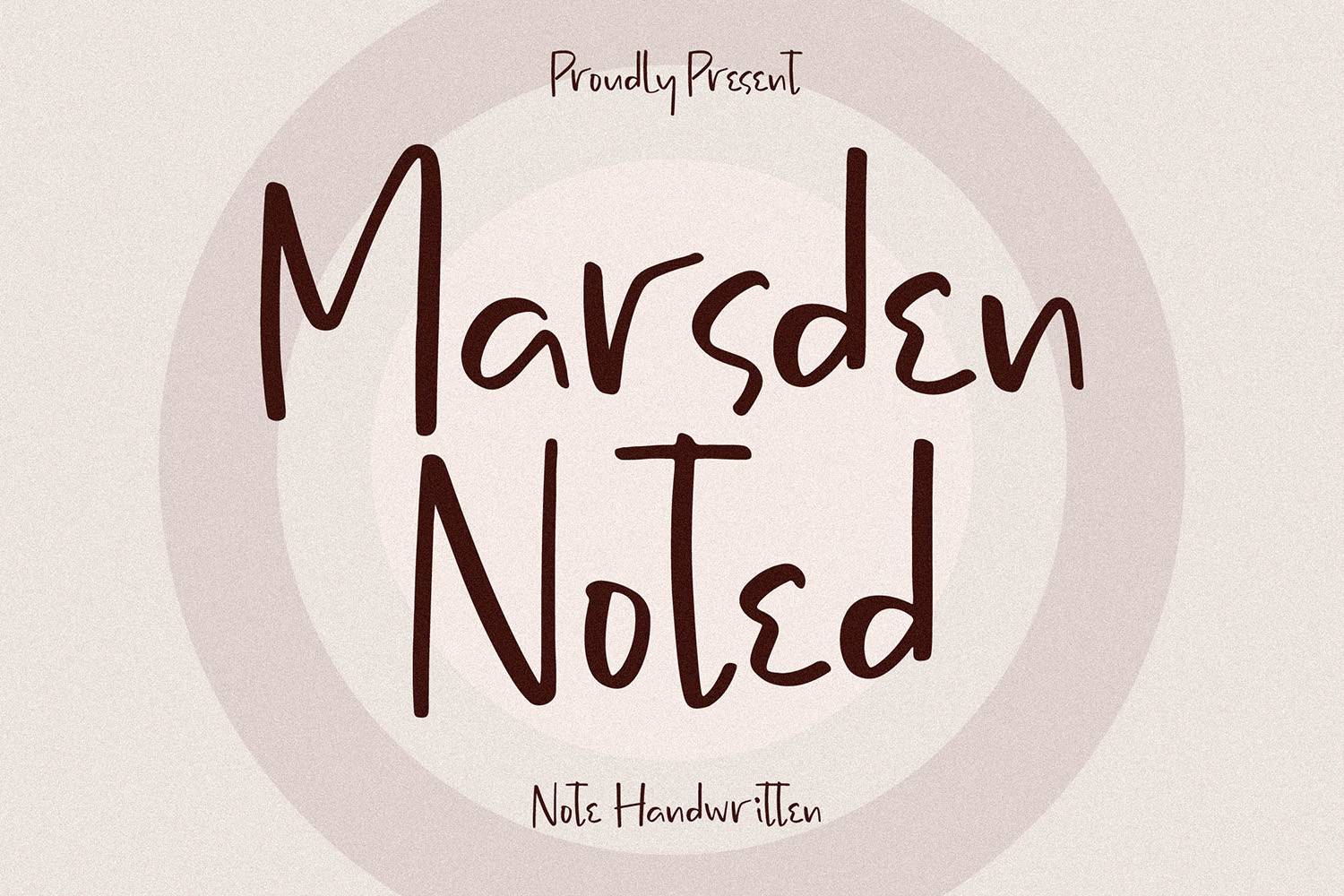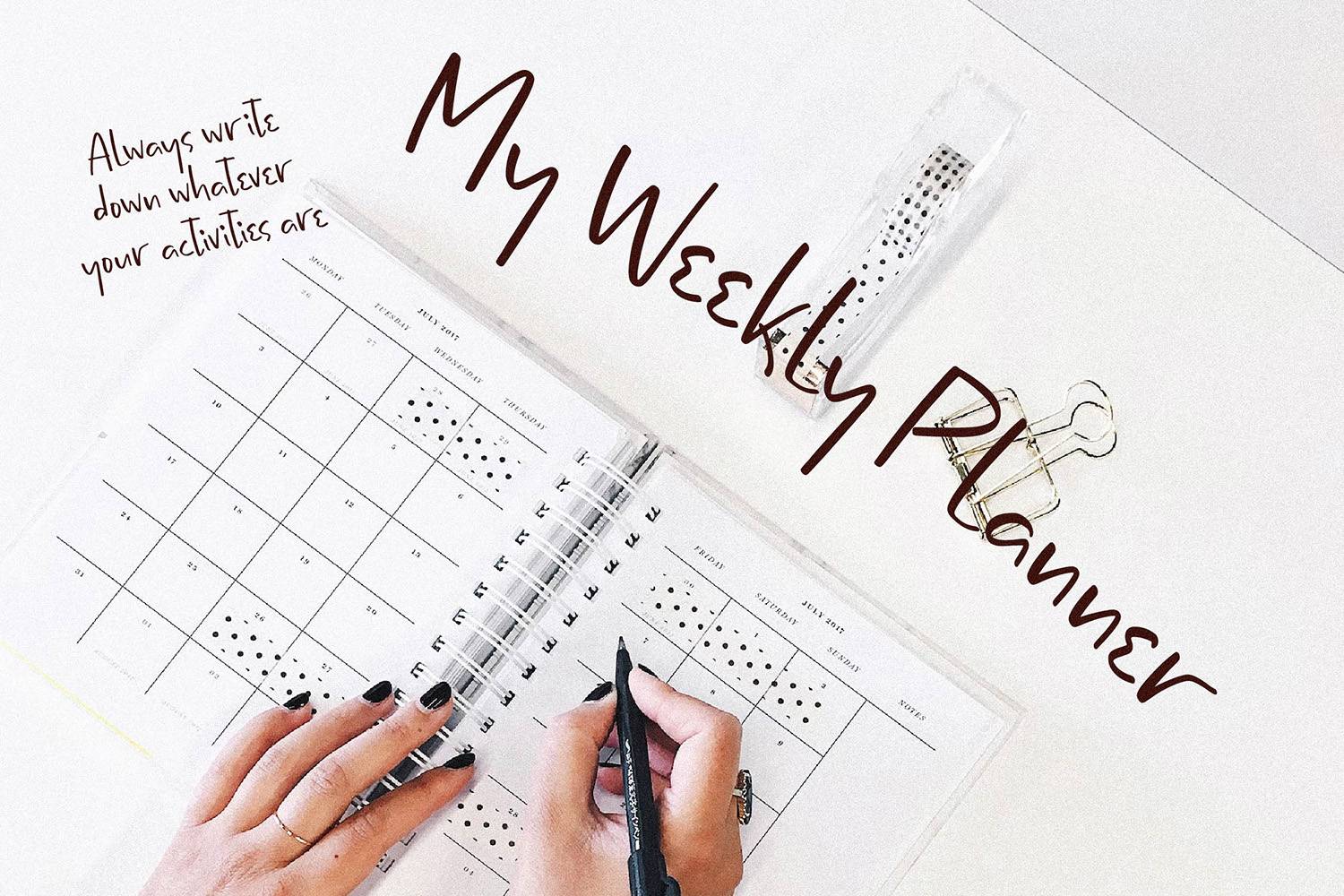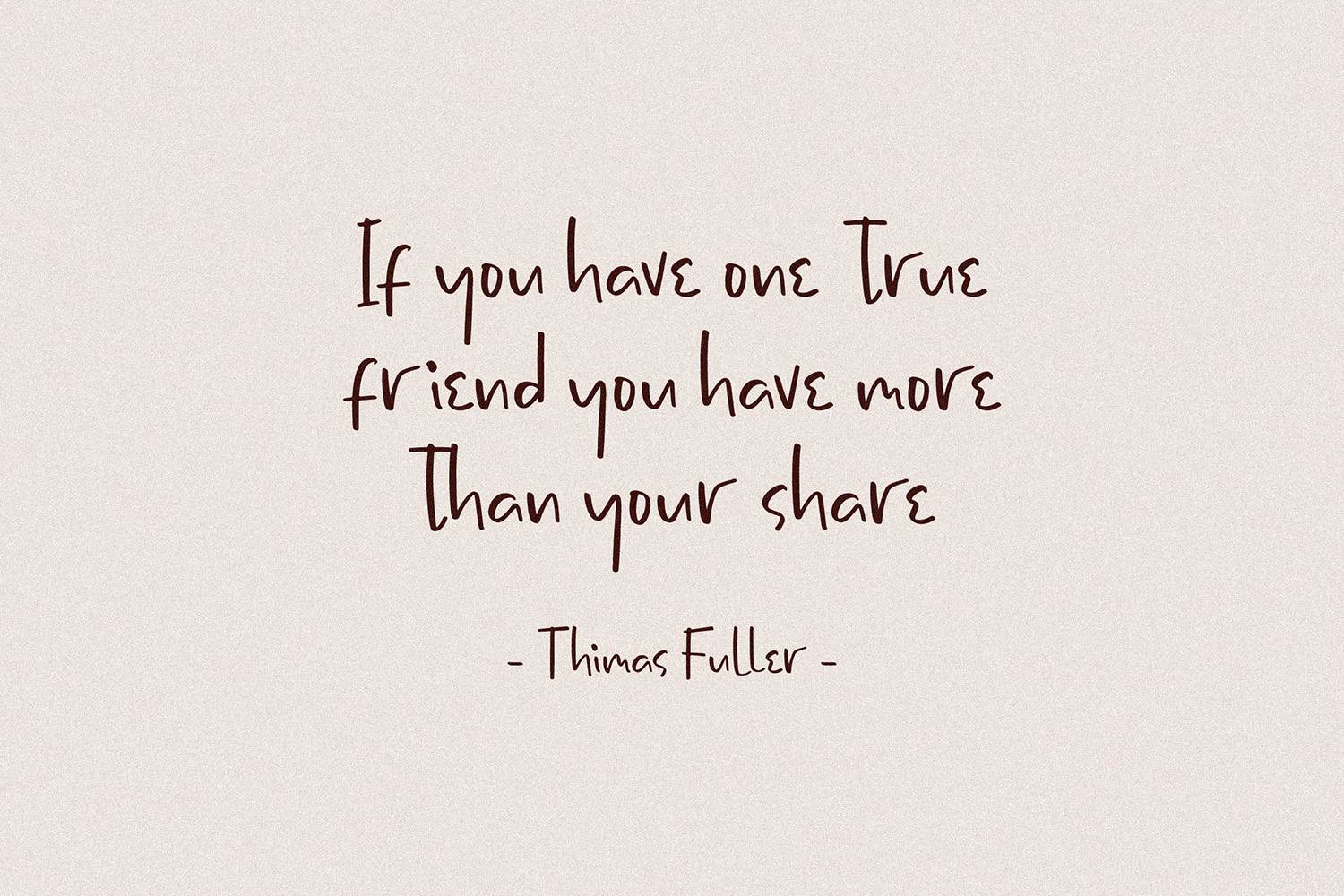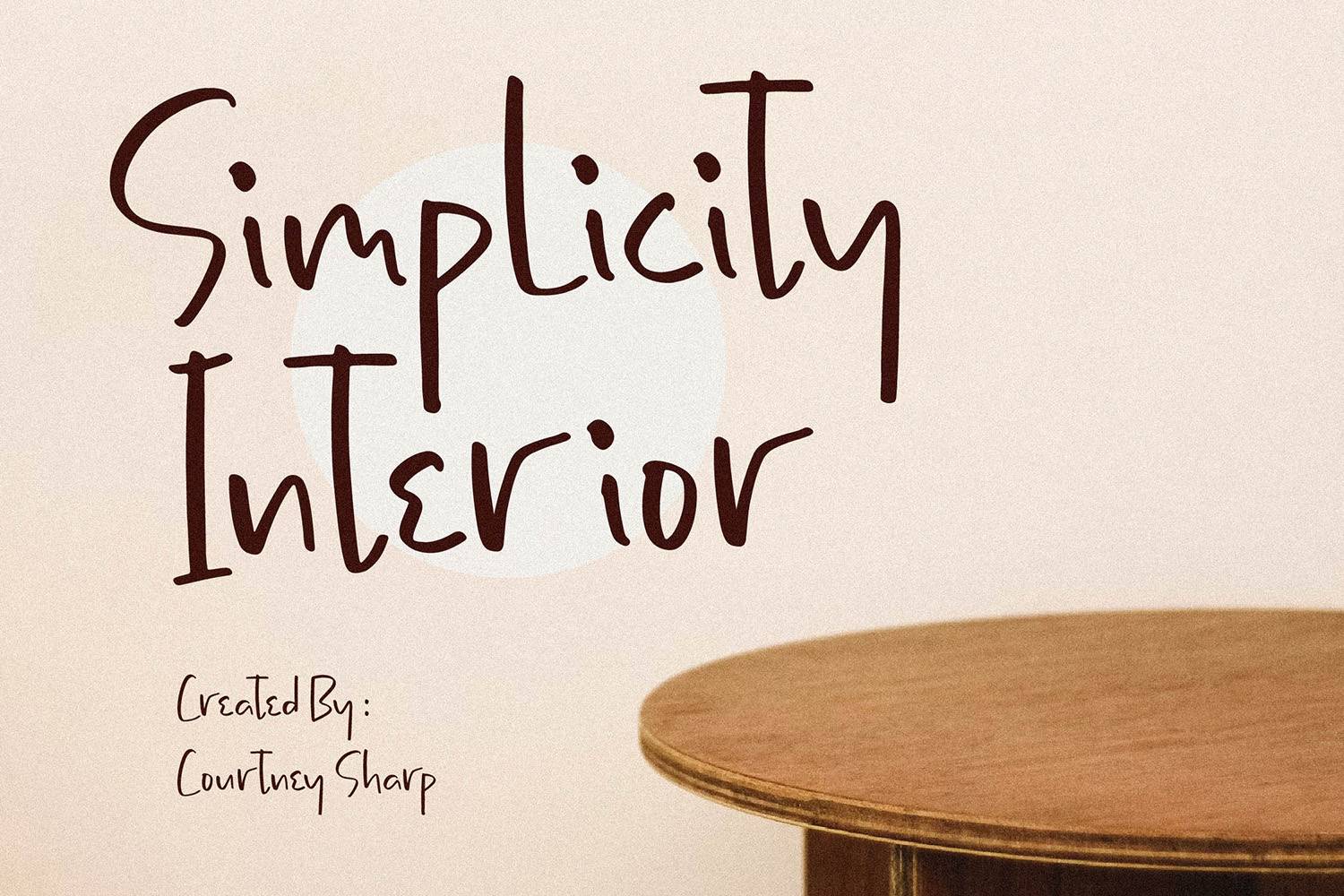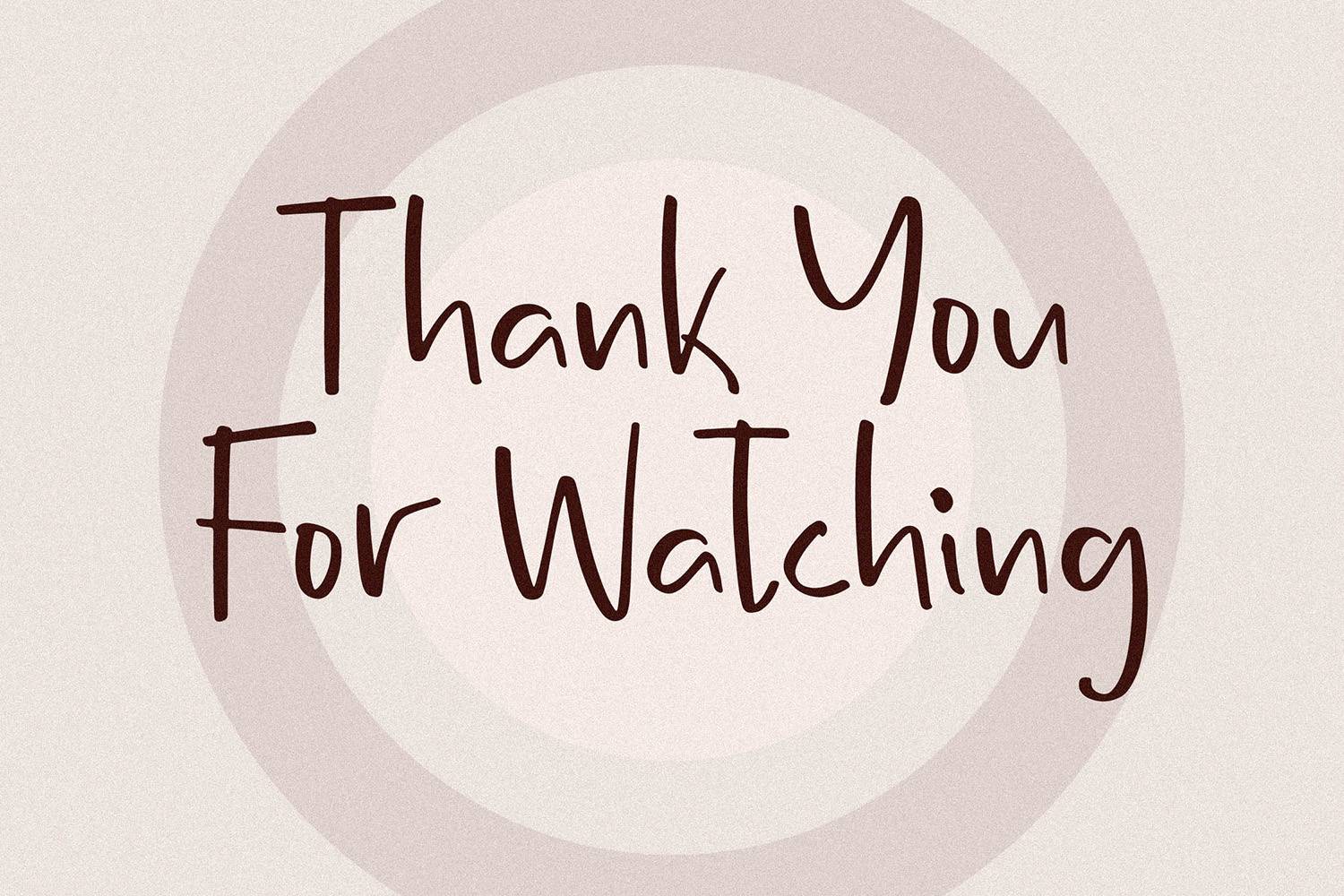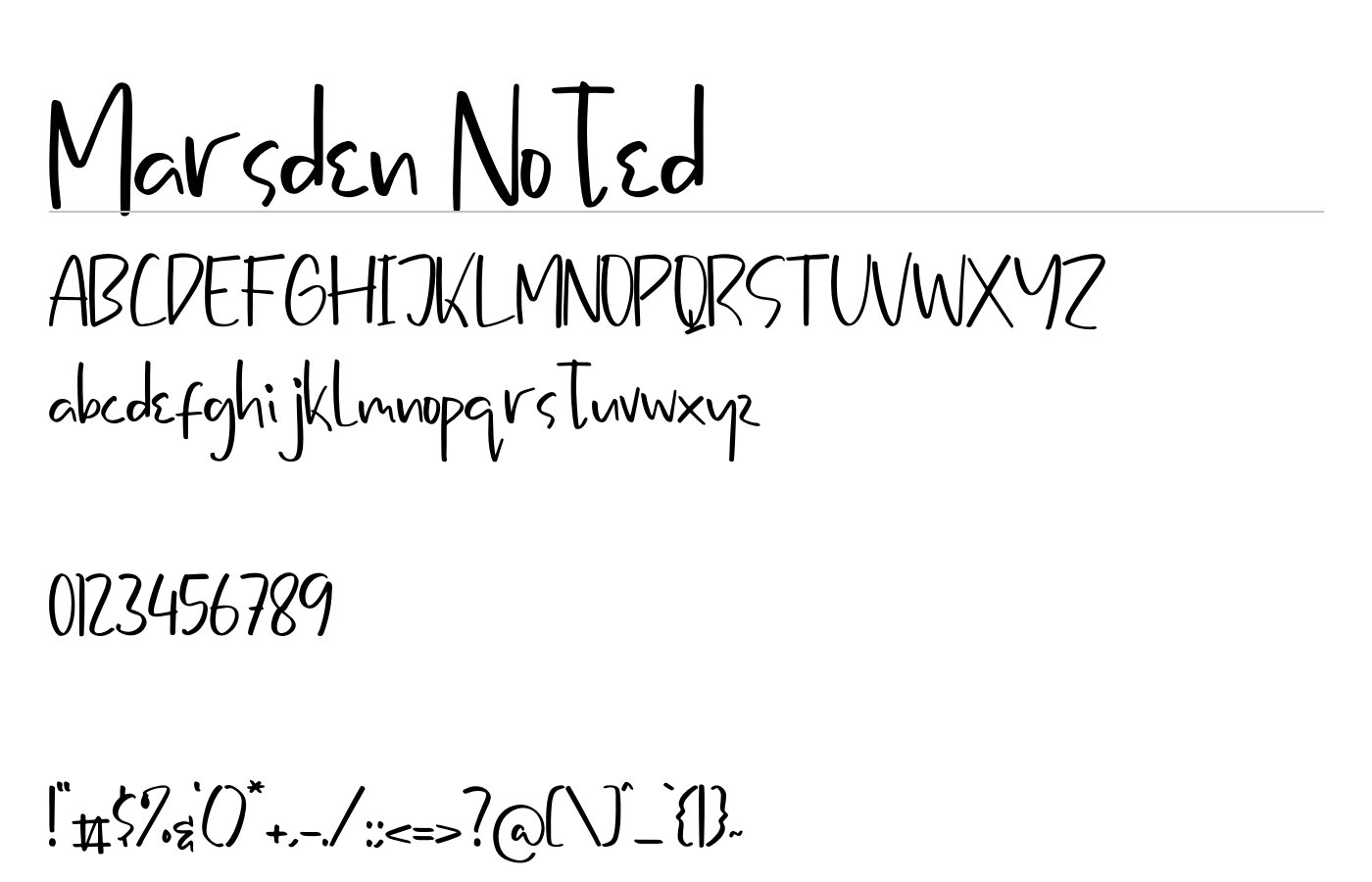
Marsden Noted is a playful, handwritten sans serif font with a casual, organic feel. Its tall, narrow letterforms and irregular strokes give it a lively, personal touch, making it ideal for creative projects, informal branding, and friendly editorial designs. This font works well where a unique, handwritten style is desired to convey approachability and charm.
Marsden Noted Font
About Marsden Noted Font